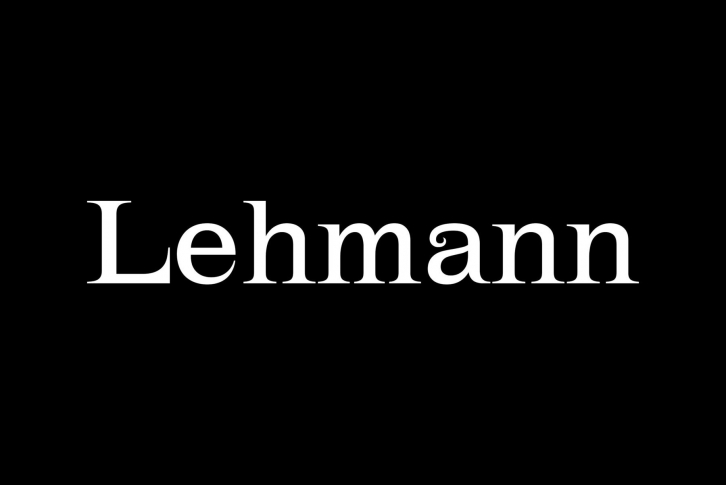
PT Lehmannâ„¢ was designed for ParaType in 2002 by Tagir Safayev. Inspired by letterforms of Shiroky (Wide) Renaissance typeface and other fonts of Ossip Lehmann foundry, St.-Petersburg, c. 1874. A face of the so-called Elzevir type has thin triangular serifs and sharp spiral-like terminals. For use in advertising and display typography.